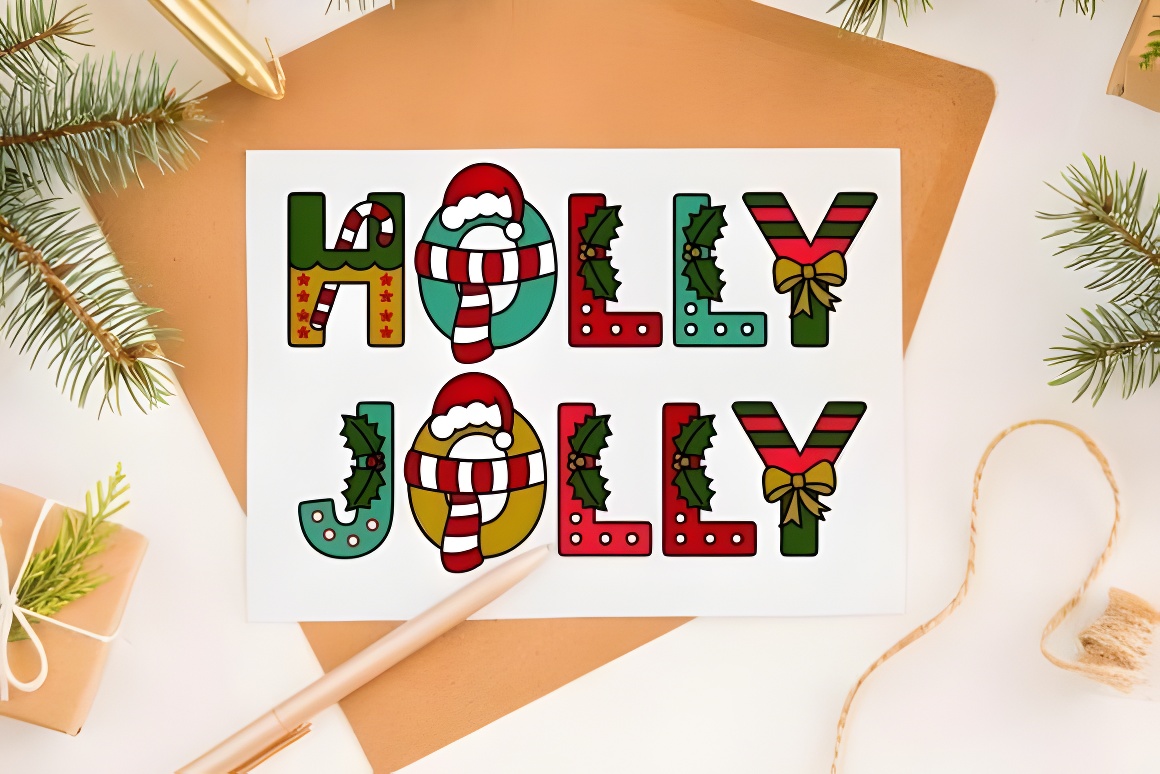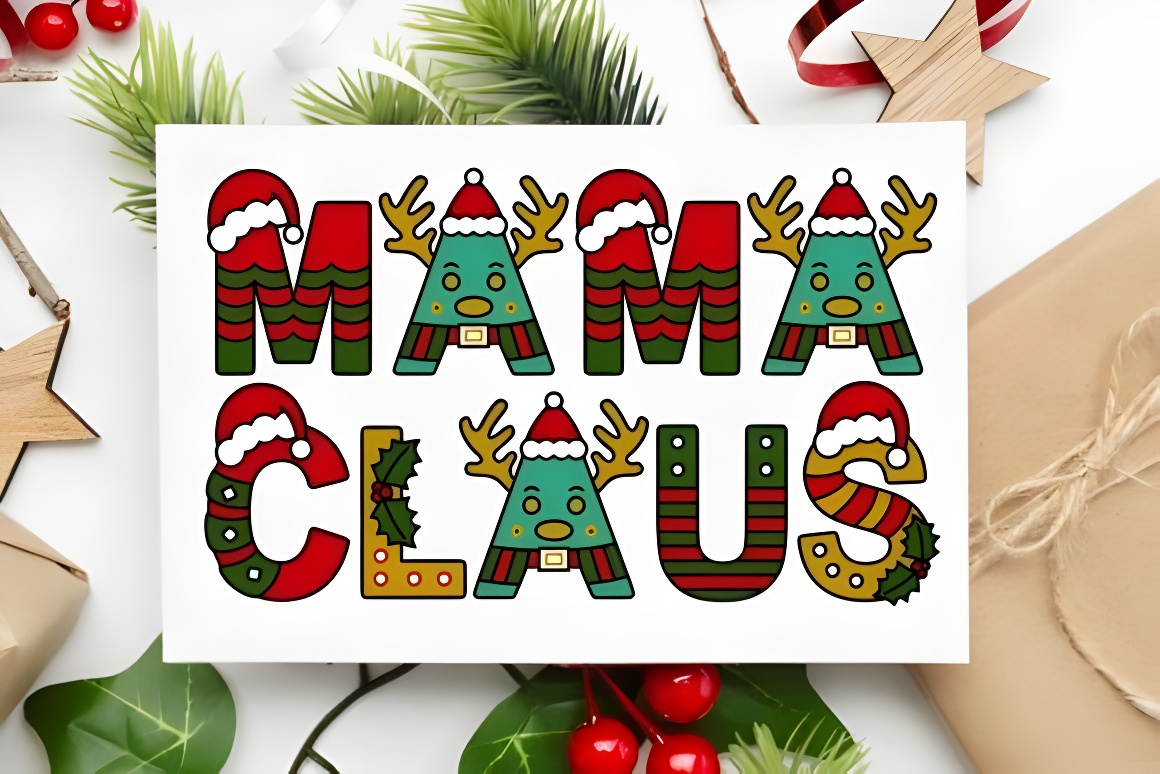
Festive Christmas Font - Cute Holiday Decorative Typography for Seasonal Designs
Infuse holiday projects with festive charm using New Born Christmas Font. This cute decorative typography adds playful whimsy to Christmas cards, gift tags, and seasonal decorations. Perfect for joyful holiday designs.